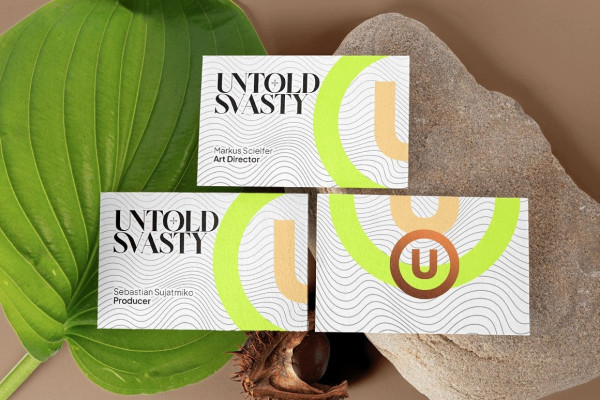
Qolara Serif Font
Qolara serif Font is a modern elegant and stylish serif typeface. This font looks very simple, clean, and elegant. Specially designed by skilled hands makes this font is the perfect fit for all your big projects.
Qolara serif is perfect for branding projects, logo, wedding designs, social media posts, advertisements, product packaging, product designs, label, photography, watermark, invitation, stationery and any projects that need luxury and modern taste.